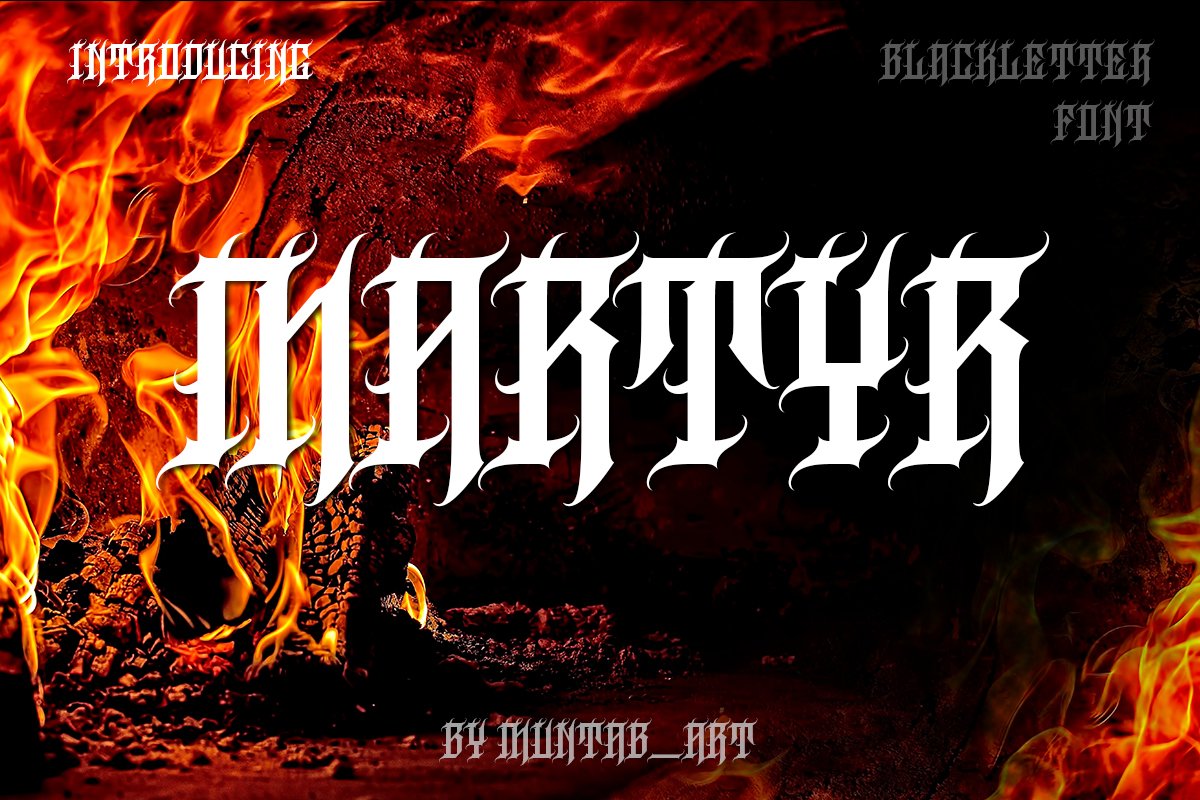
Martyr
Introducing of our new product the name Martyr font. Gangster font perfect for tattoo design, logo studio tattoo, shirt design,poster, branding, etc.